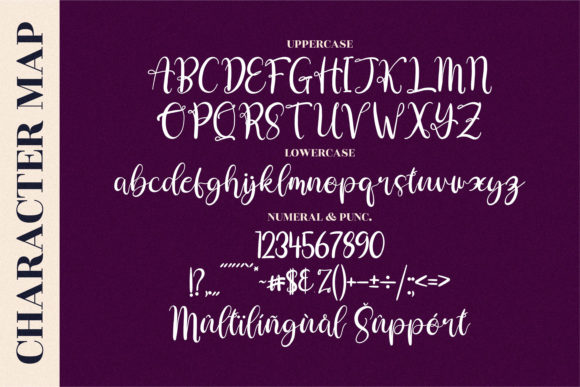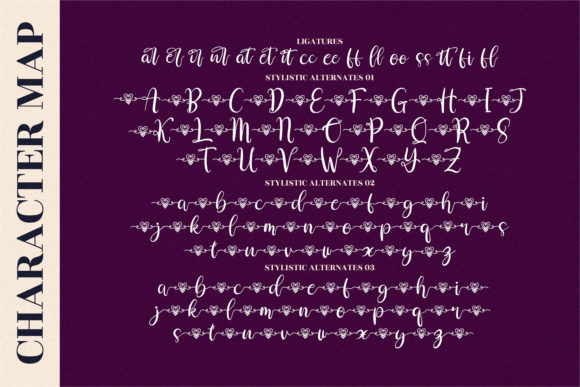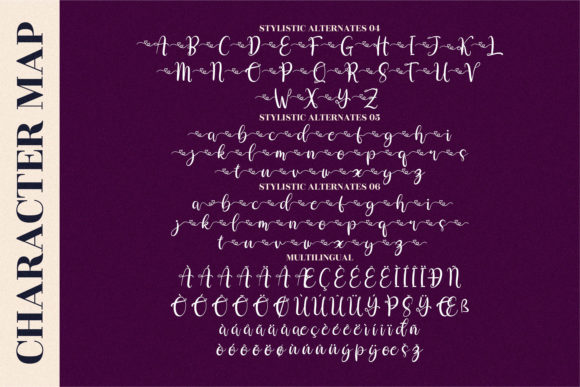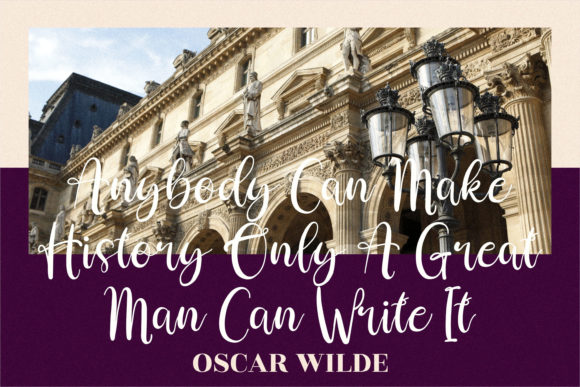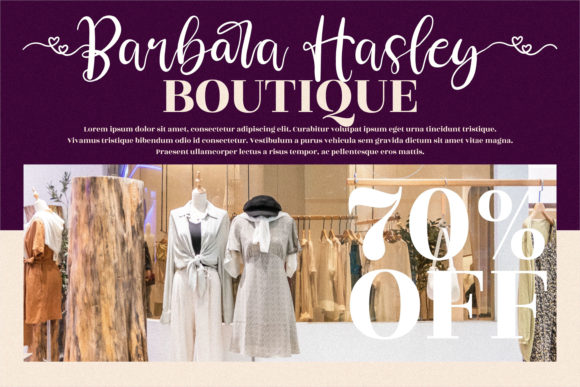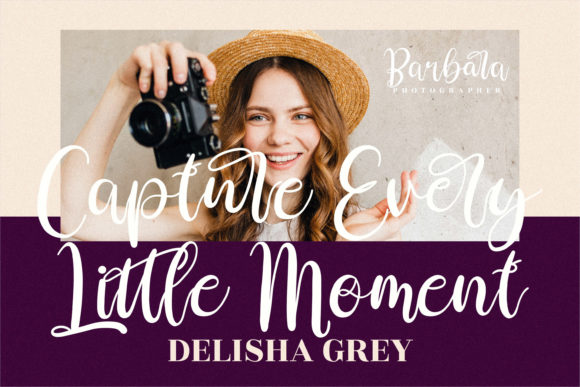
Introduction to Love Erlia Font
Love Erlia is a beautiful script font with a love and nature theme.
Simple and easy to use, this font will be very beautiful if you mix it with your various craft designs This font is PUA encoded which means you can access all of the glyphs and swashes with ease.
Key Features of Love Erlia Font
Why Choose Love Erlia Font?